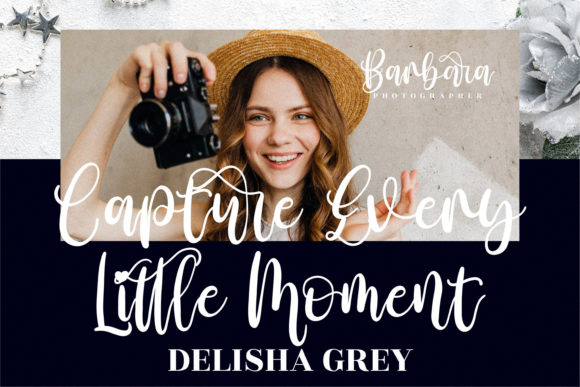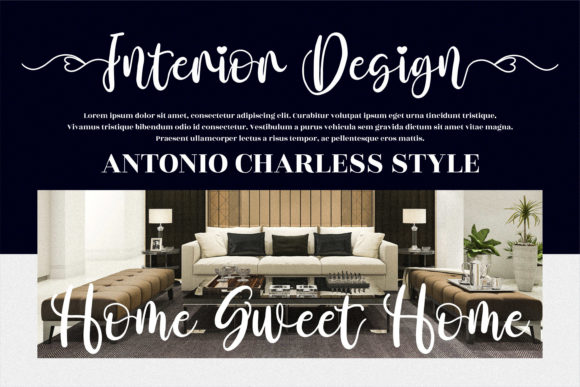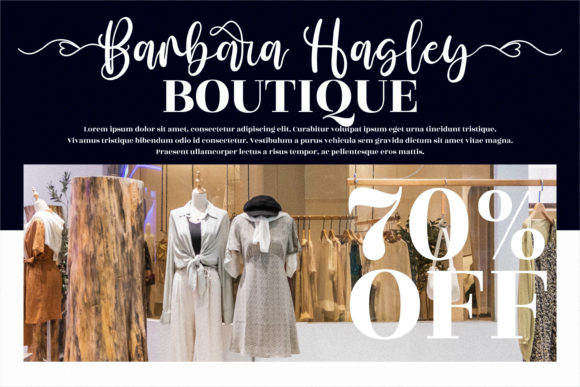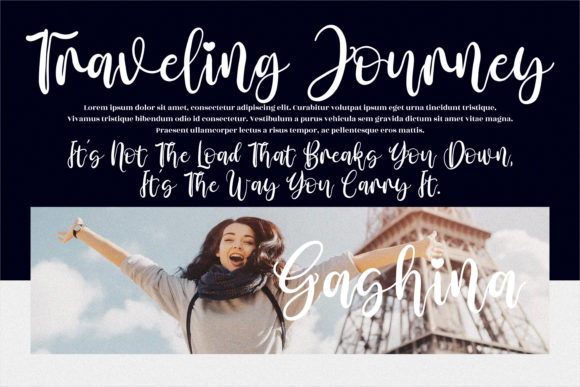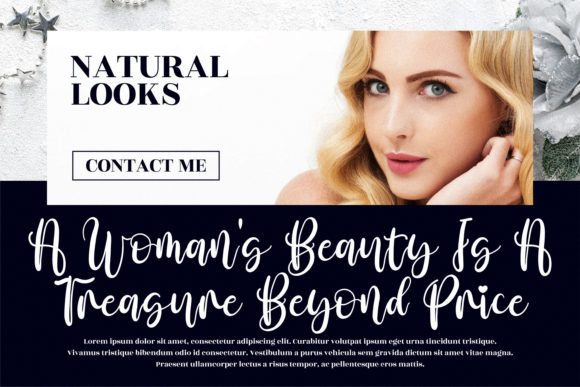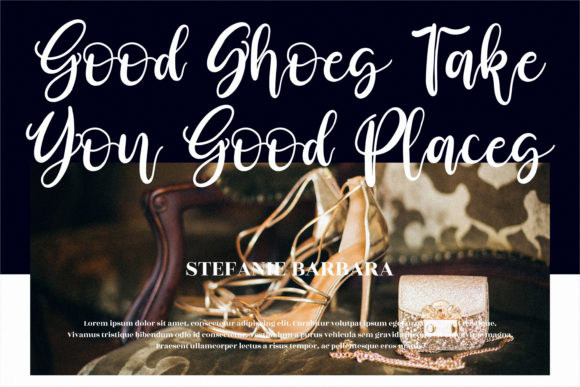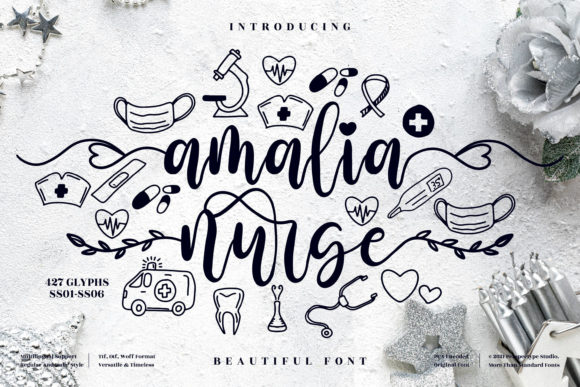
Introducing Amalia Nurse Font: The Epitome of Elegance and Romance
In the realm of typography, few fonts capture the essence of romance and delicacy as perfectly as the Amalia Nurse Font. This exquisite script font is a masterclass in elegance, designed to elevate your designs with a touch of sophistication and refinement. Whether you’re a seasoned designer or a crafty enthusiast, Amalia Nurse is poised to become your go-to choice for projects that demand a beautiful and refreshing aesthetic.
The Beauty of Amalia Nurse
Amalia Nurse is more than just a font; it’s an experience. Its romantic and delicate script is meticulously crafted to evoke a sense of luxury and class, making it perfect for a wide range of applications, from wedding invitations and branding to packaging and digital media. The font’s intricate details and flowing lines are designed to add a touch of whimsy and charm to your designs, setting them apart from the ordinary.
One of the standout features of Amalia Nurse is its PUA (Private Use Area) encoding. This means that accessing the font’s extensive range of glyphs and swashes is incredibly straightforward. With PUA encoding, you can easily navigate through the font’s various characters and decorative elements, allowing you to experiment and create unique designs with ease. No more tedious searching for the perfect character or swash – Amalia Nurse puts everything you need right at your fingertips.
Amalia Nurse is a versatile font that caters to the needs of both professional designers and crafty enthusiasts. Its versatility makes it suitable for a wide range of projects, including:
• Wedding and Event Design: Create stunning wedding invitations, place cards, and event branding with Amalia Nurse’s elegant script.
• Branding and Packaging: Elevate your brand’s visual identity with a font that exudes luxury and sophistication.
• Digital Media: Use Amalia Nurse to add a touch of elegance to your website, social media graphics, or digital marketing materials.
• Crafting and DIY Projects: Add a personal touch to your handmade crafts, such as journals, planners, and gift tags.
Why Choose Amalia Nurse?
With so many fonts available, why choose Amalia Nurse? Here are just a few compelling reasons:
• Unique and Eye-Catching: Amalia Nurse’s distinctive script is sure to grab attention and leave a lasting impression.
• Elegant and Refined: This font’s sophisticated aesthetic makes it perfect for projects that demand a high level of elegance.
• Easy to Use: With PUA encoding, you can access all the font’s features with ease, making design a breeze.
• Versatile: Amalia Nurse is suitable for a wide range of projects and applications.
Amalia Nurse Font is a true gem in the world of typography. Its romantic and delicate script, combined with PUA encoding for effortless design, makes it an indispensable tool for designers and crafters alike. Whether you’re looking to create stunning wedding invitations, elevate your brand’s visual identity, or simply add a touch of elegance to your DIY projects, Amalia Nurse is the perfect choice. Discover the beauty and versatility of Amalia Nurse Font today and take your designs to new heights of elegance and sophistication.